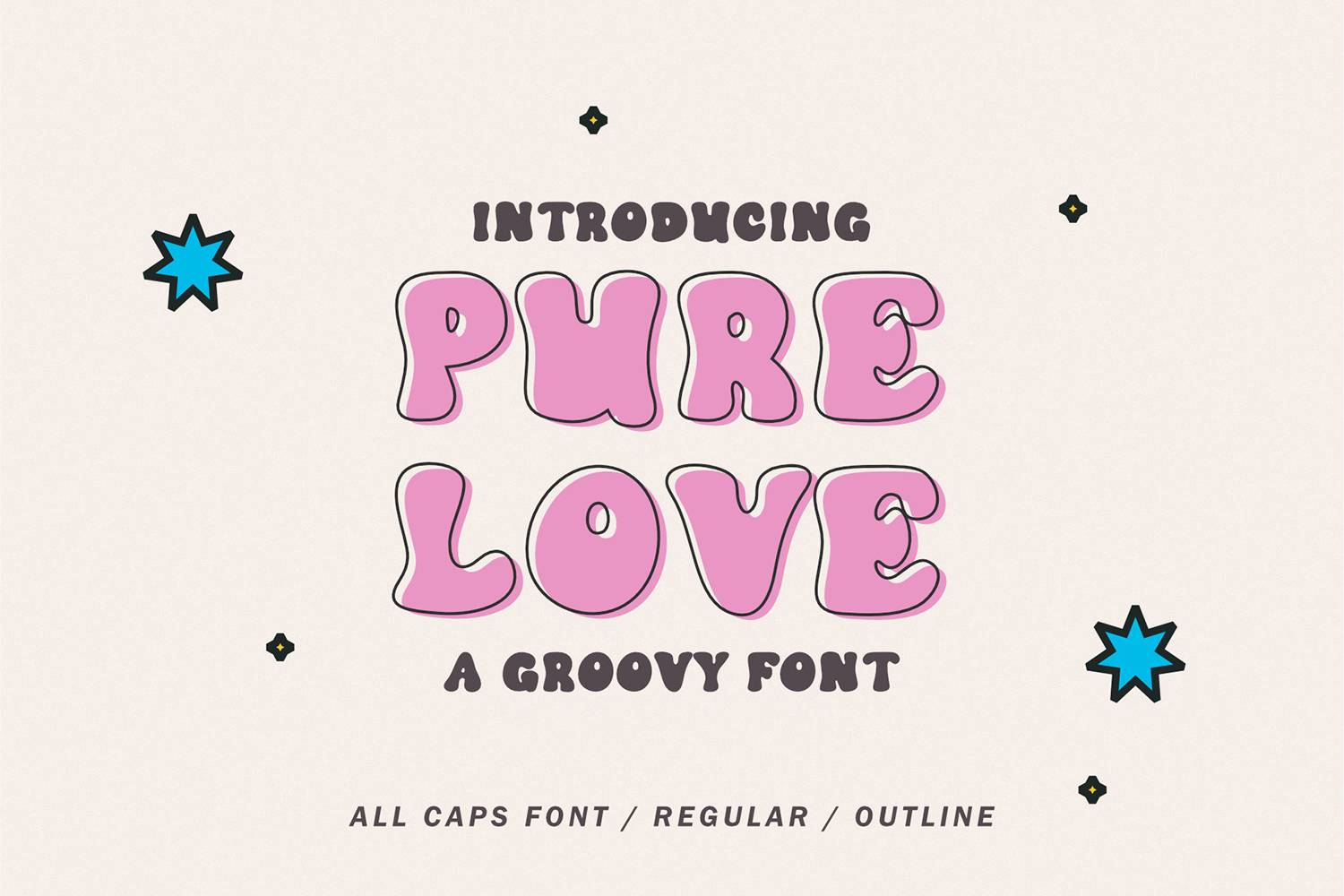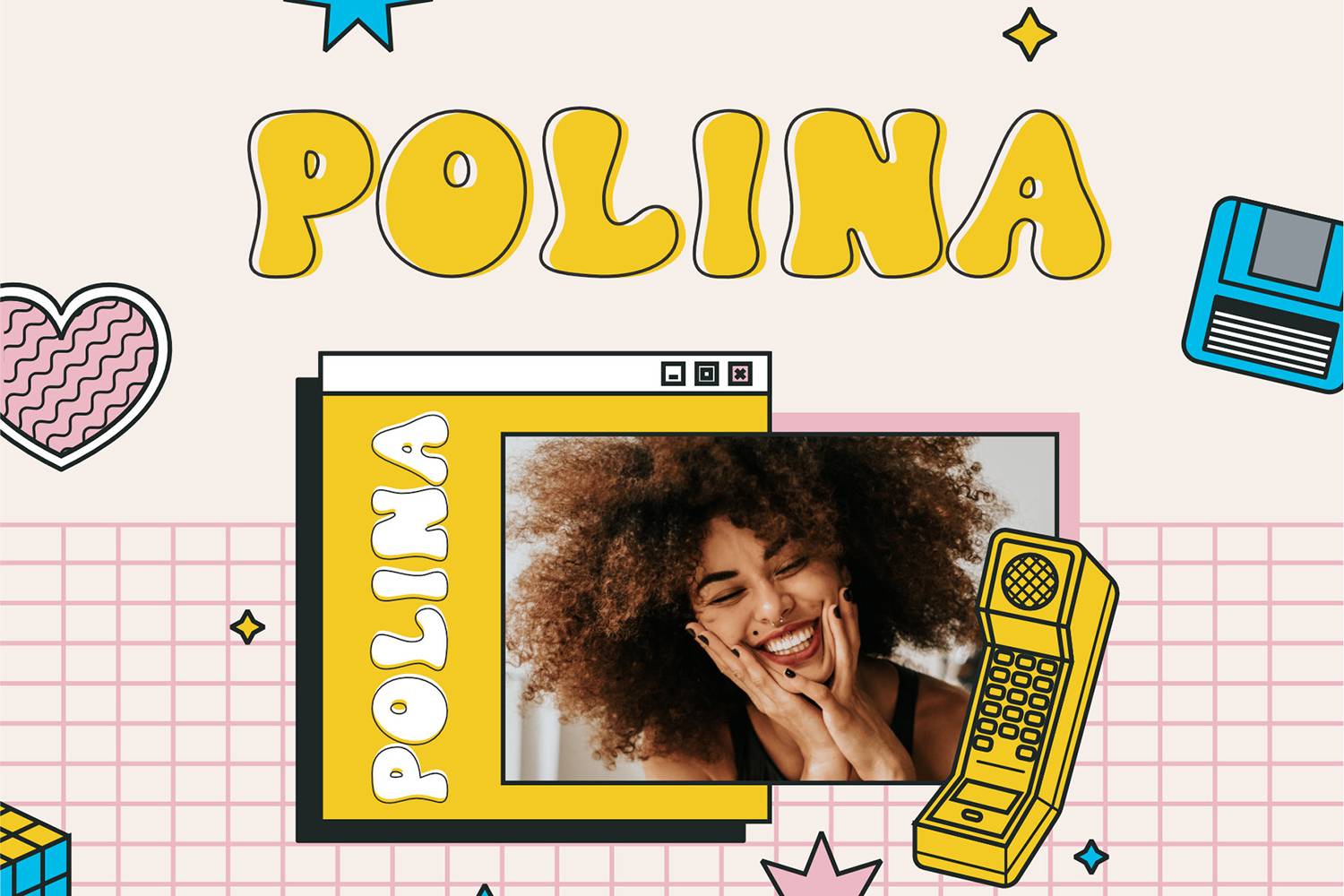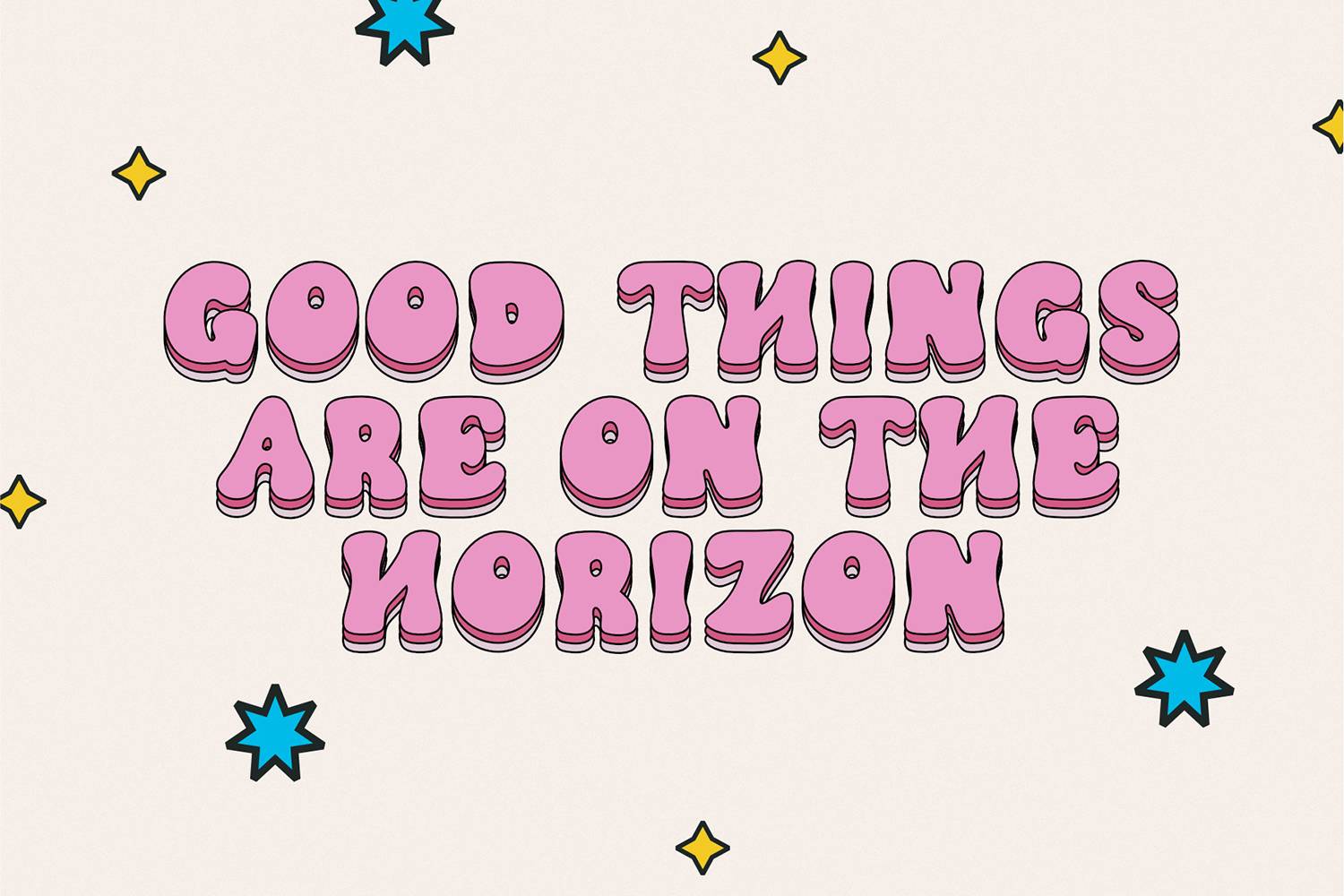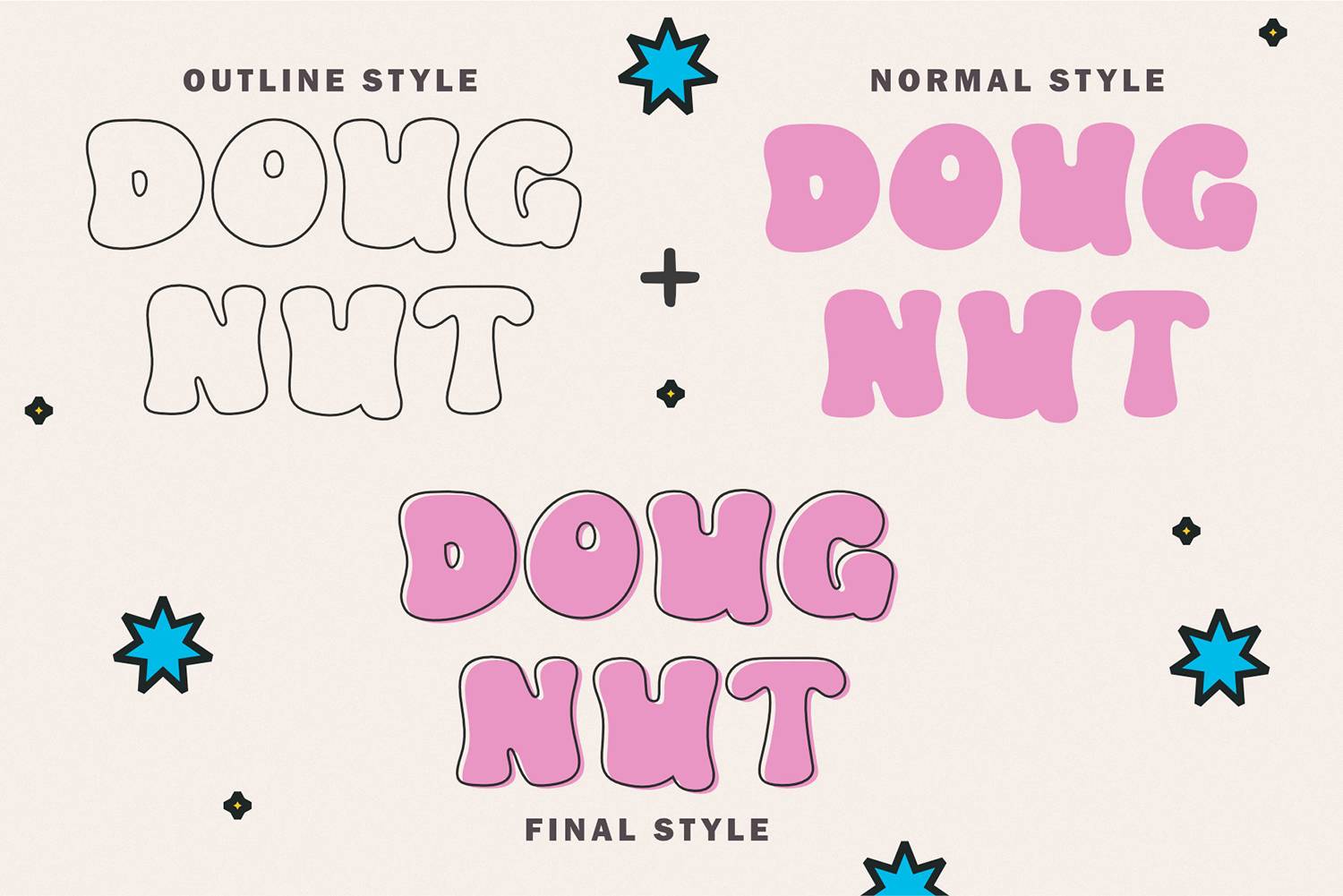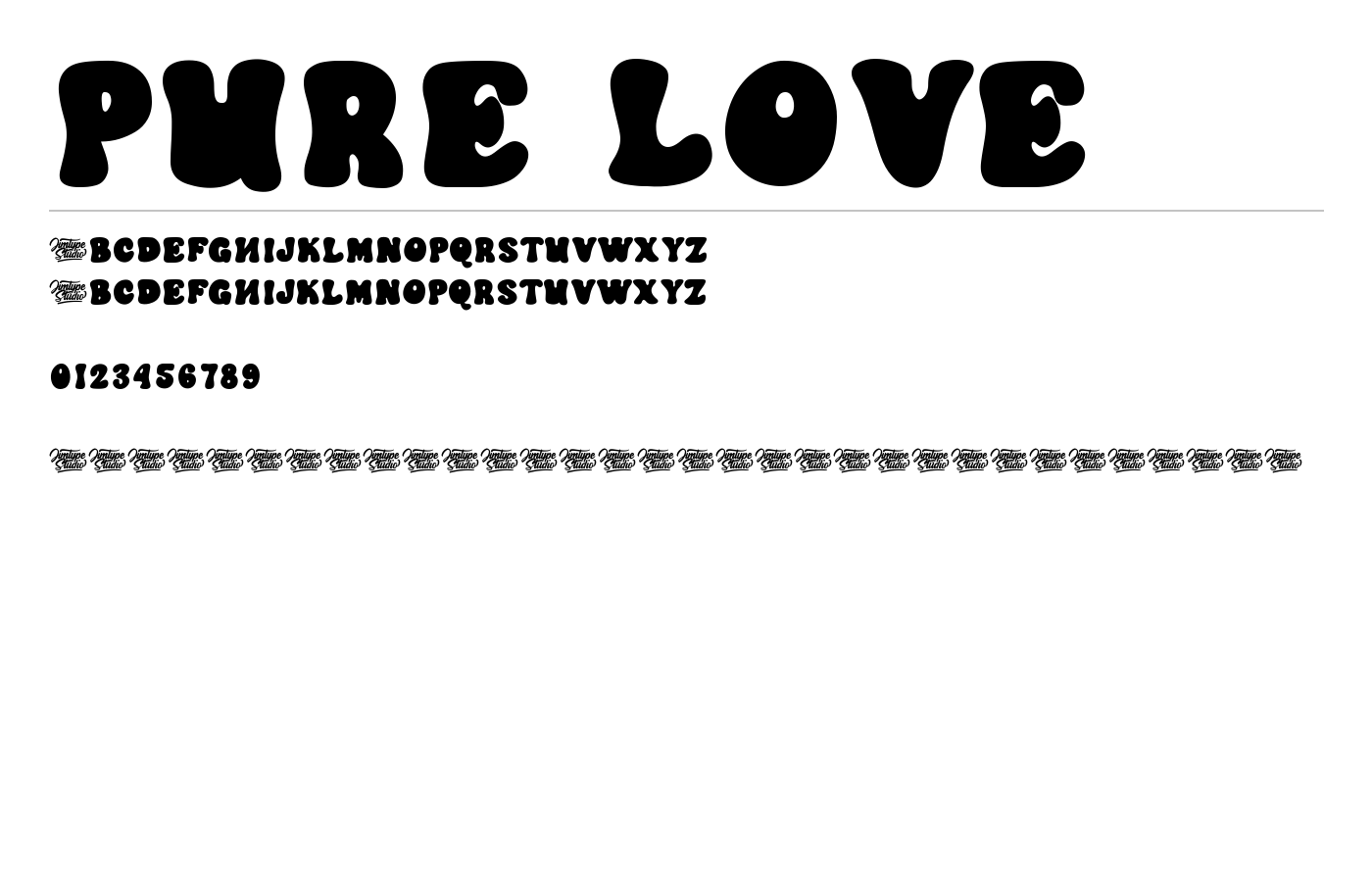
Pure Love Font is a bold, playful display typeface with thick, rounded shapes that bring a fun and retro vibe. Its quirky, chunky letterforms work wonderfully for eye-catching headlines, branding, or packaging where a friendly and energetic mood is desired. This font shines best in creative, informal settings that call for a lively and approachable style.
Pure Love Font
About Pure Love Font
| Font family | Pure Love Font |
| Release date | 2022-06-19 |
| Designer | Jimtype Studio |